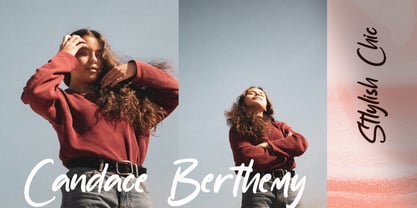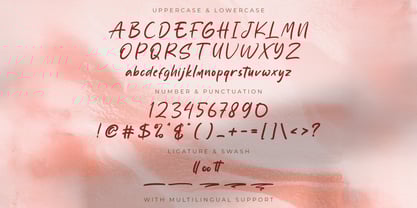
Sabtu Minggu
by Stringlabs Creative Studio
The Sabtu Minggu Font Family was designed by Virgiawan Listanto and published by Stringlabs Creative Studio. Sabtu Minggu contains 1 styles. More about this family
Sabtu Minggu is a playful handwritten font inspired by the joy and freedom of weekends. With its casual strokes and relaxed flow, this font adds a cheerful, laid-back vibe to any design perfect for projects that want to feel fun, personal, and full of good energy.
Designers: Virgiawan Listanto
Foundry: Stringlabs Creative Studio